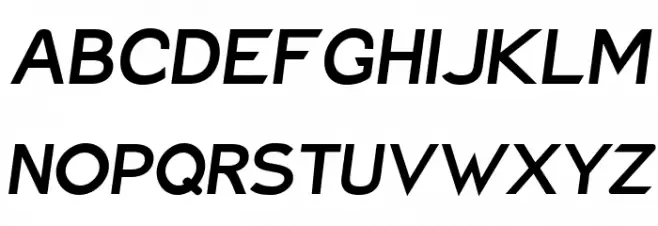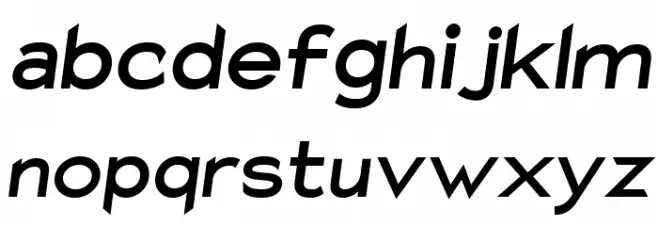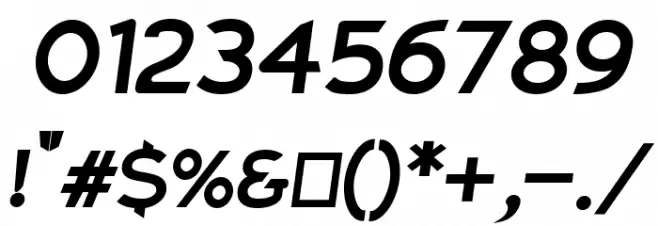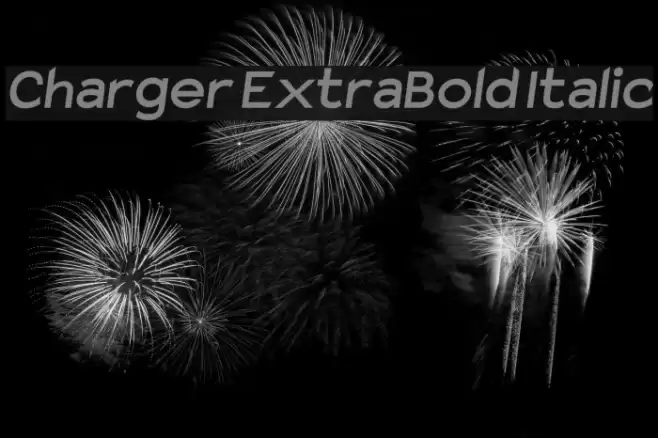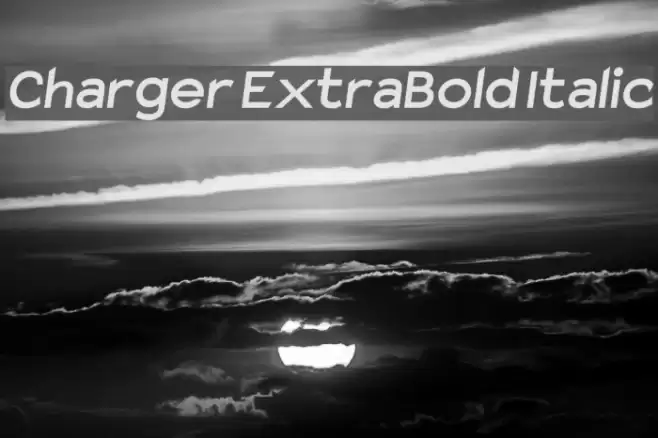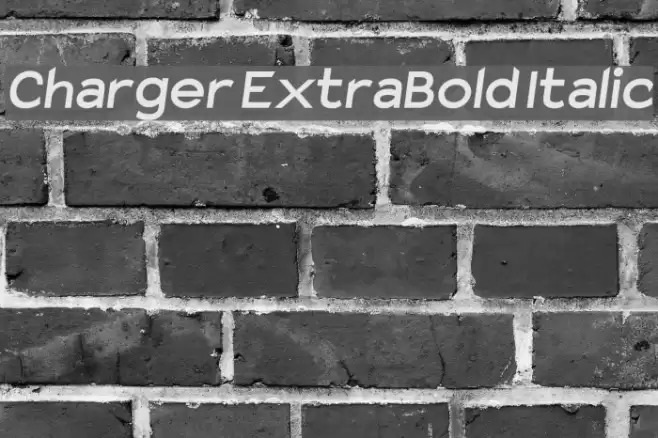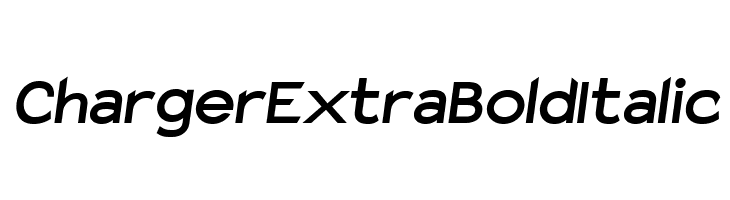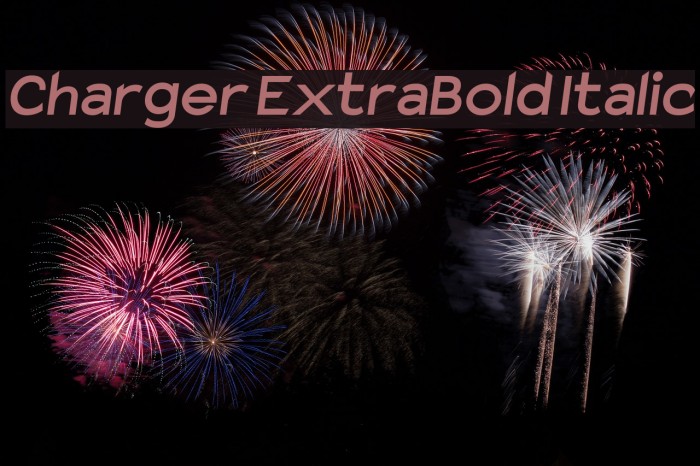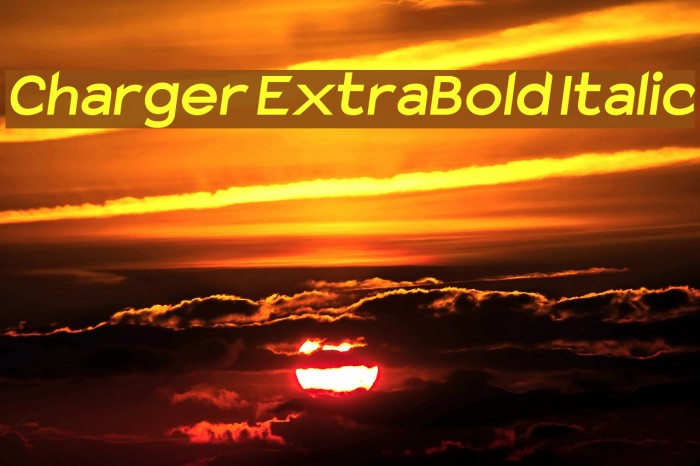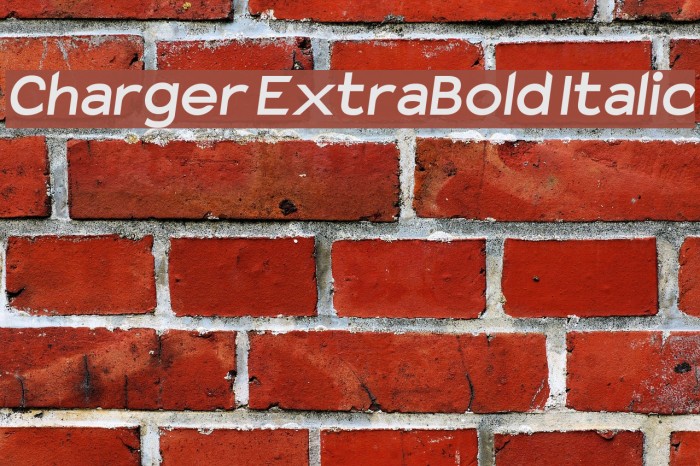
Charger ExtraBold Italic
This font exhibits a dynamic and bold style with a pronounced italic slant, giving it a sense of motion and energy. The characters are robust and thick, ensuring high visibility and impact. The design features smooth curves and clean lines, contributing to a modern and sleek appearance. The uppercase and lowercase letters maintain a consistent style, with the lowercase letters slightly more rounded. Numerals are clear and bold, matching the overall aesthetic. Special characters are well-integrated, maintaining the font's cohesive look.
A bold, italic font with a modern and dynamic style.
- Proposed Projects: Ideal for branding, advertising, and headlines that require a strong and energetic presence.
- Use Case: Headlines, Logos, Branding